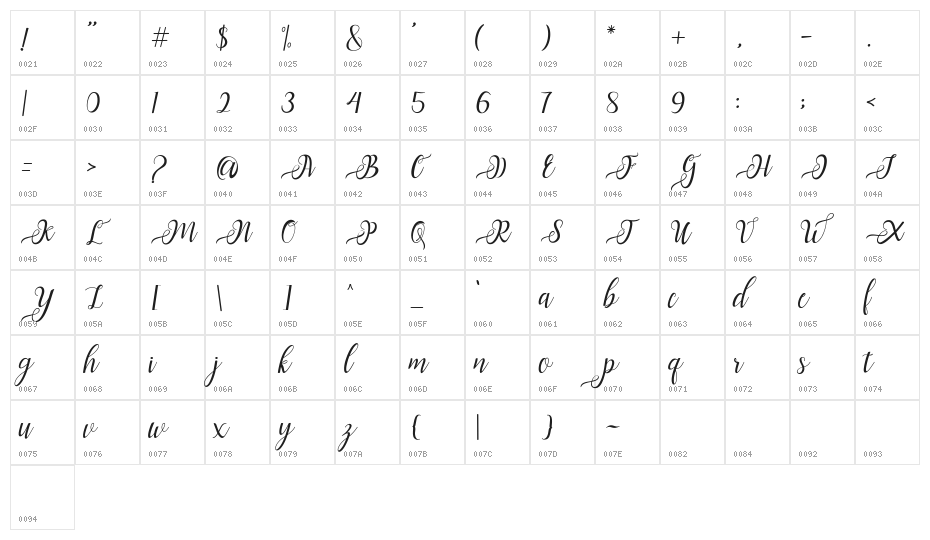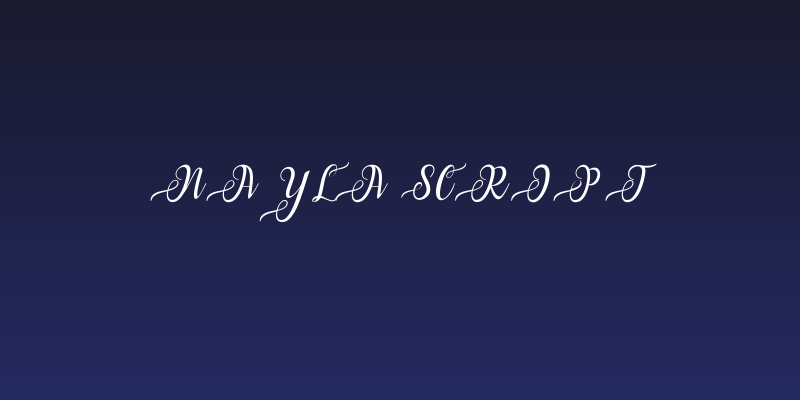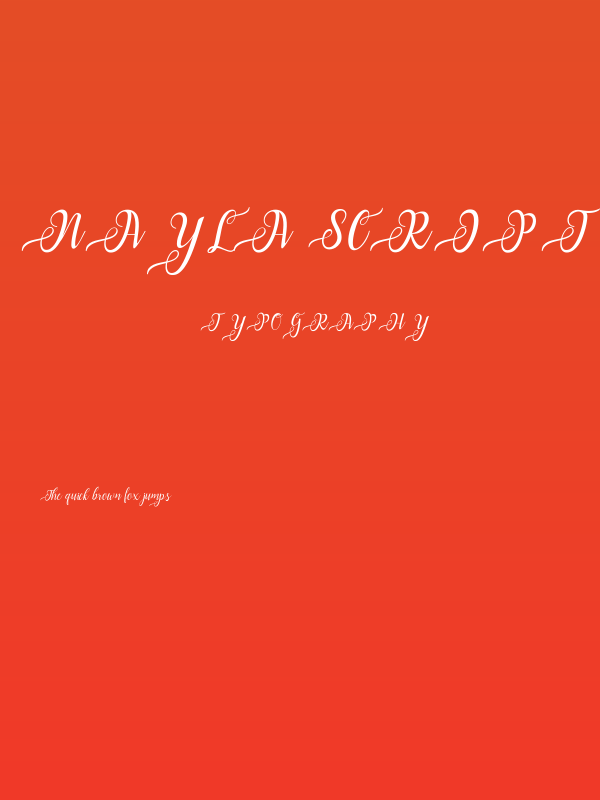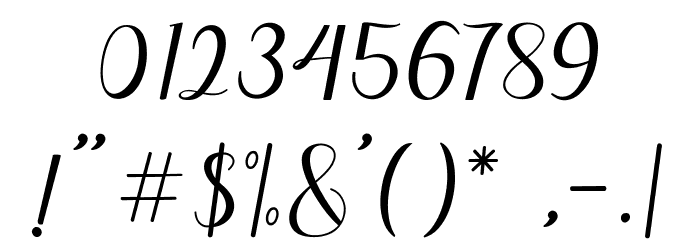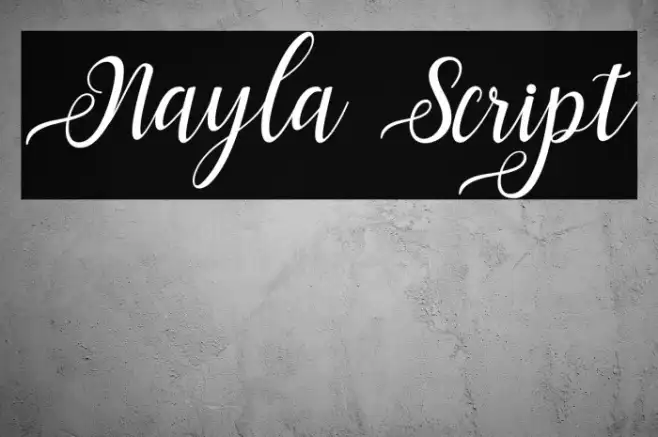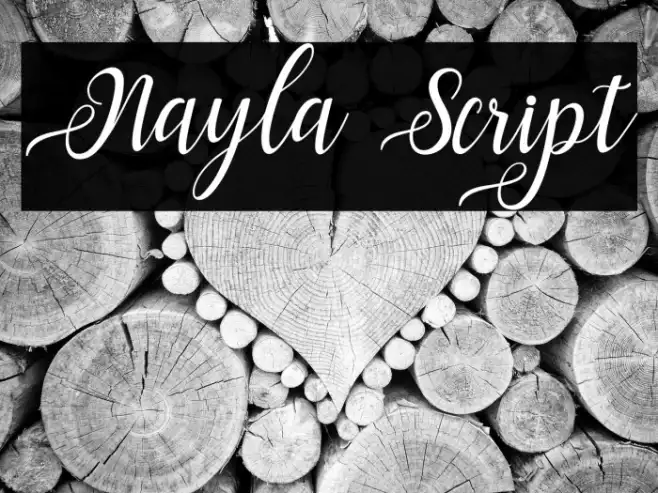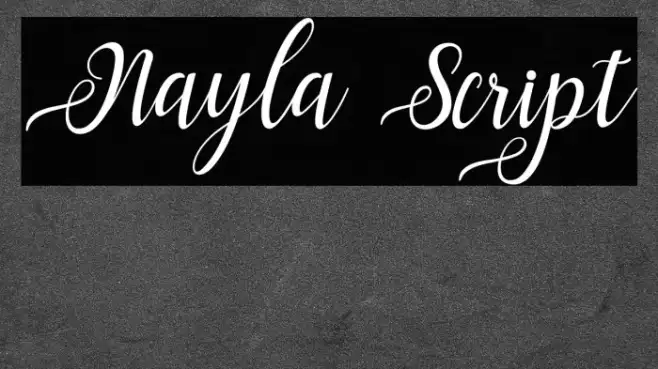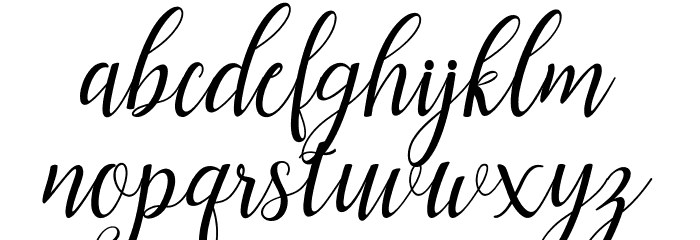
Nayla Script Font
Nayla Script Description
This elegant script font features a flowing, cursive style with intricate swashes and loops that add a touch of sophistication and grace. The uppercase letters are adorned with elaborate flourishes, making them ideal for decorative purposes. The lowercase letters maintain a consistent, smooth flow, enhancing readability while retaining the font's artistic flair. The numerals are designed with a similar elegance, ensuring they complement the overall aesthetic. Special characters are thoughtfully crafted, maintaining the font's cohesive style. This font is perfect for projects that require a touch of elegance and class.
| Use Case | Logos, Invitations, Decorative Text |
| Proposed Projects | Ideal for wedding invitations, elegant branding, greeting cards, and luxury packaging. |